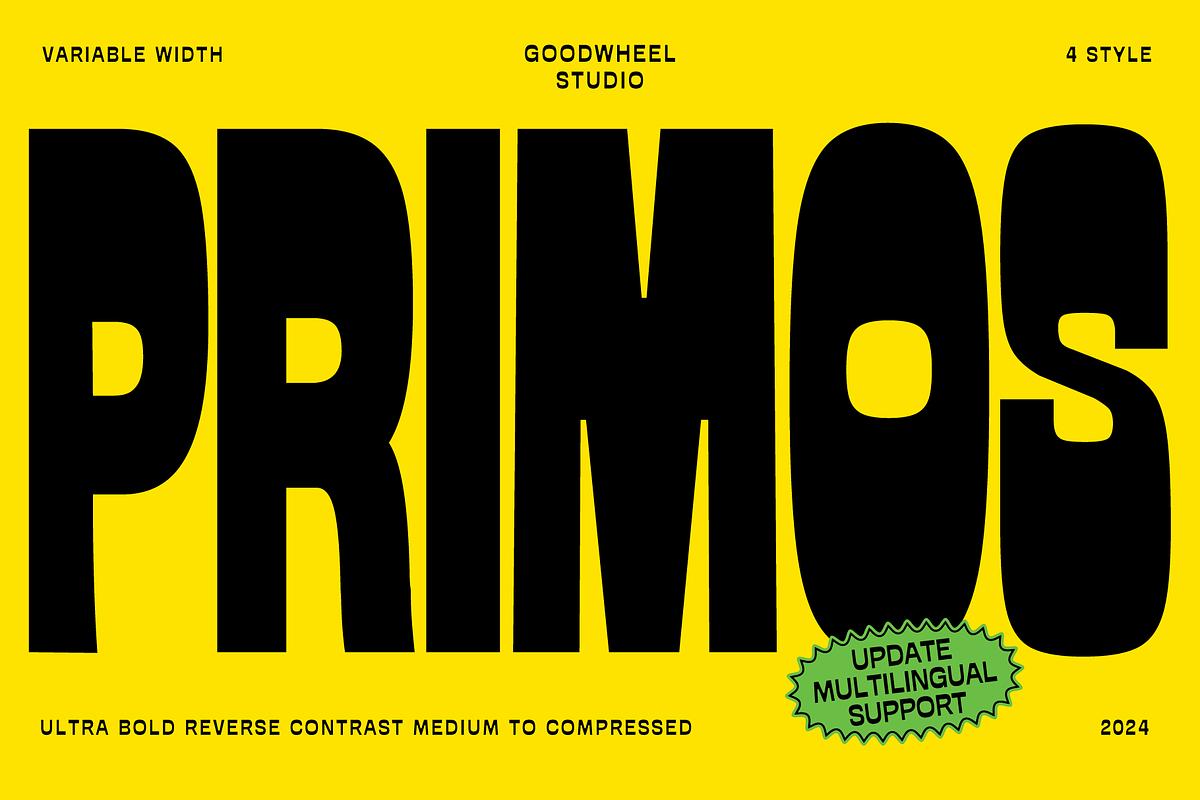
When silence isn’t an option, GW Primos roars. This isn’t just a typeface — it’s a visual force built for impact. Engineered for those who refuse to fade into the background, GW Primos delivers an uncompromising, ultra-bold presence with reverse contrast and medium-to-compressed proportions that command attention the instant they’re seen.
Unleash Unmatched Visual Power with GW Primos
Designed for extreme legibility and raw power, GW Primos breaks the mold of conventional display fonts. Its reverse contrast — where thick strokes meet thinner, precise tails — creates a dramatic, almost architectural tension. This isn’t soft or elegant; it’s aggressive, forward-moving, and engineered to make your message impossible to ignore.
- Ultra-Bold Weight & Reverse Contrast — Every letter pulses with intensity. Thick, solid strokes are paired with thin, sharp serifs and terminals, creating a tension that drives the eye forward.
- Medium to Compressed Proportions — Optimized for compact headlines and high-impact layouts. Perfect for logos, posters, packaging, and branding that demand maximum presence in minimal space.
- Full Variable Font with Width Axes — Adjust the width dynamically in real time. Go from medium to ultra-compressed — no need to switch files. Control your design with precision and fluidity.
- WIP Variant: GW Primos Text — A work-in-progress that extends the font’s versatility to longer text passages, with more refined spacing and character shaping.
Where GW Primos Becomes Irreplaceable
GW Primos thrives in spaces where strength, clarity, and attitude matter. It’s not just a font — it’s a brand voice in type.
- Logo & Brand Identity Design — Create sharp, memorable identities for tech startups, performance brands, luxury labels, and high-energy ventures.
- Poster & Event Headlines — Stand out in crowded visual landscapes. Whether for concerts, film releases, or trade shows, GW Primos ensures recognition at a glance.
- Product Packaging & Labeling — Elevate premium or bold consumer goods with packaging that screams quality and distinction.
- Typography-Driven Advertising — Use it in print, digital ads, social media visuals, and video titles to cut through distraction.
- Interactive & Dynamic Design — The variable font feature enables responsive typographic design, adapting width automatically based on screen size or layout constraints.